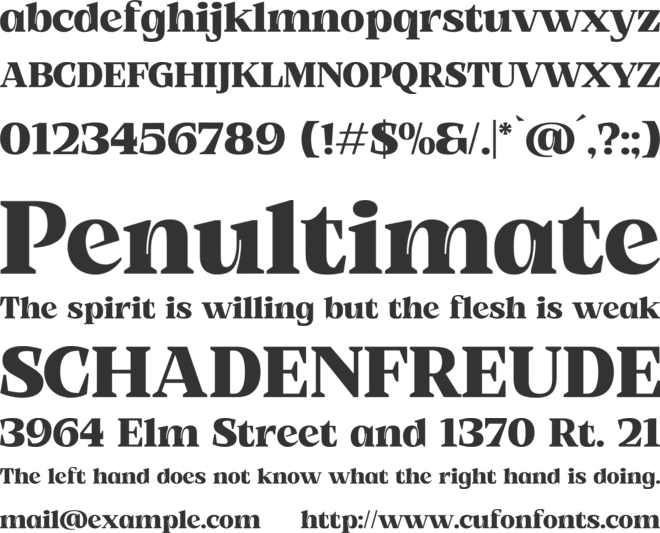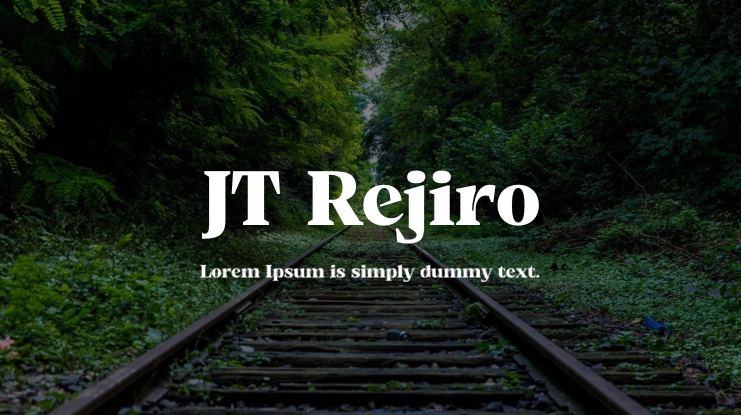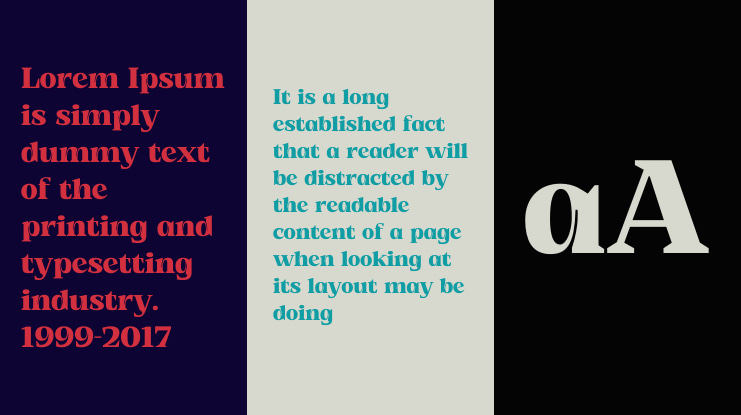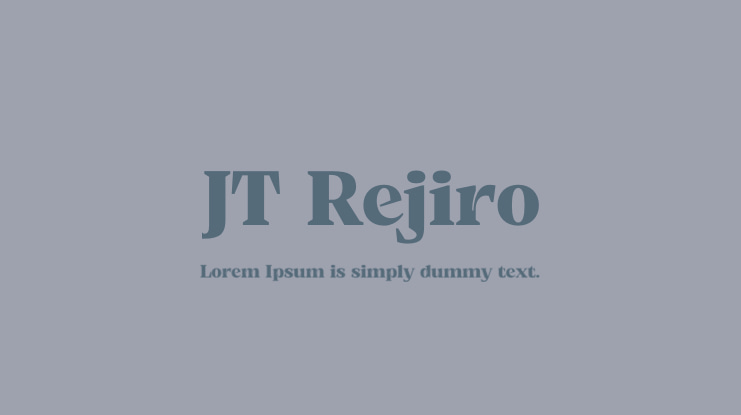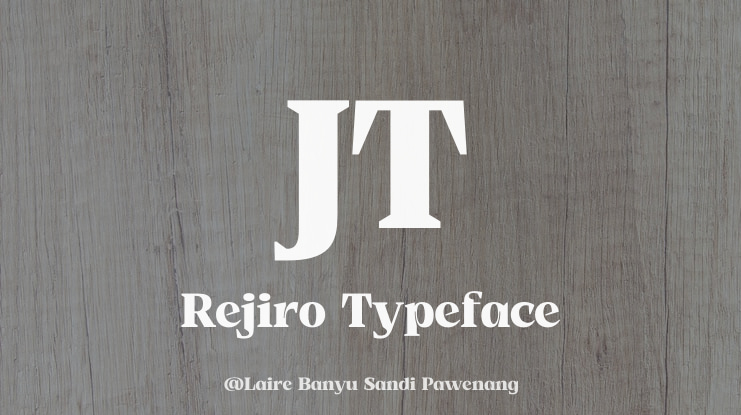
JT Rejiro Font
JT Rejiro is a distinctive serif typeface designed by Laire Banyu, featuring 18 weight styles ranging from Thin to Black. This font exudes a strong and sharp style, with each style also available in an oblique version for a consistent look. The pointed ends of the letters and the thick stem junctions are carefully crafted, featuring extreme inktraps to create a unique character. With a total of 348 glyphs, JT Rejiro supports 92 languages.